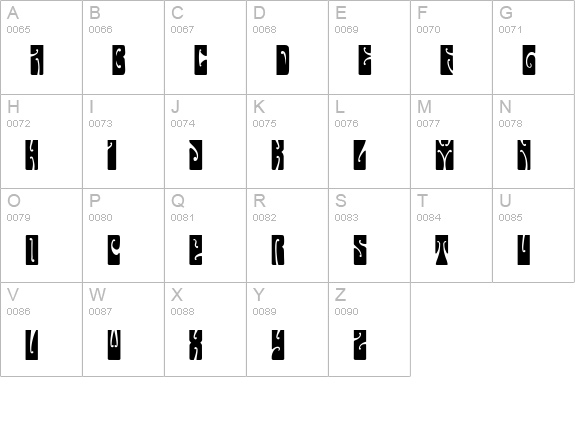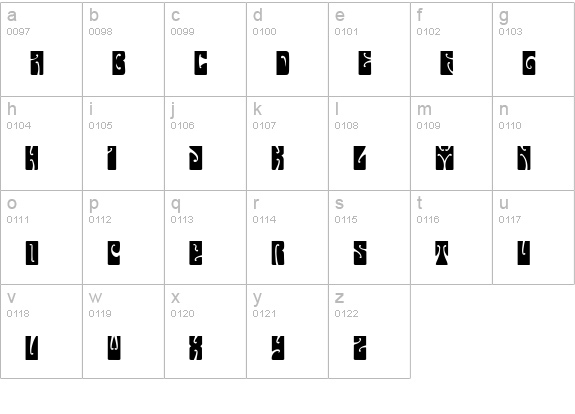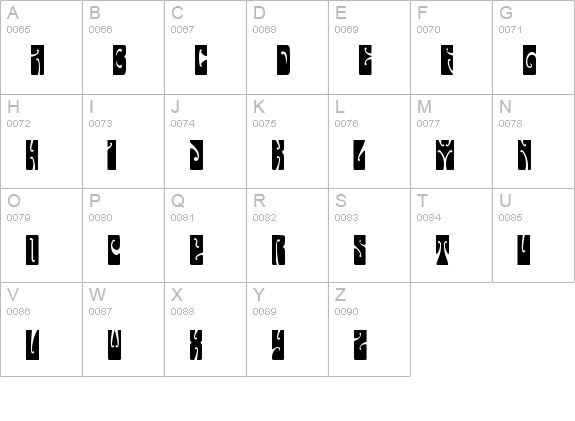
Butterfield Demo Font Details
Butterfield Demo font is a charming and elegant typeface that exudes sophistication and style. With its delicate curves and graceful lines, this font is perfect for adding a touch of class to any design project. Whether you're working on invitations, branding materials, or packaging designs, Butterfield Demo font will surely impress your audience. The best part? Butterfield Demo font is completely free to download at FontsMarket.com. So, you can elevate your designs without breaking the bank. Don't miss out on this beautiful and versatile font that will surely enhance your creative projects. Download Butterfield Demo font today and let your creativity shine!